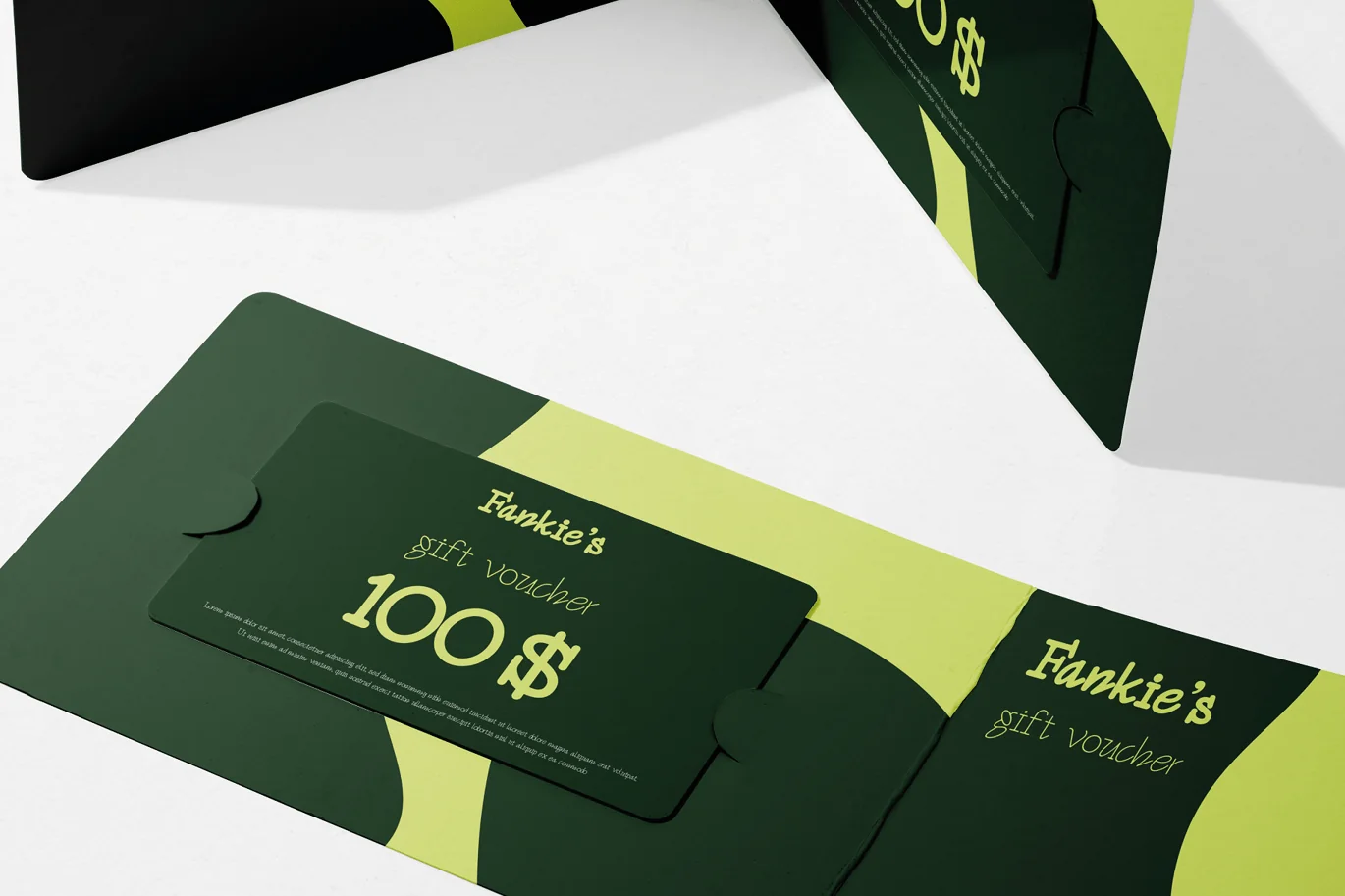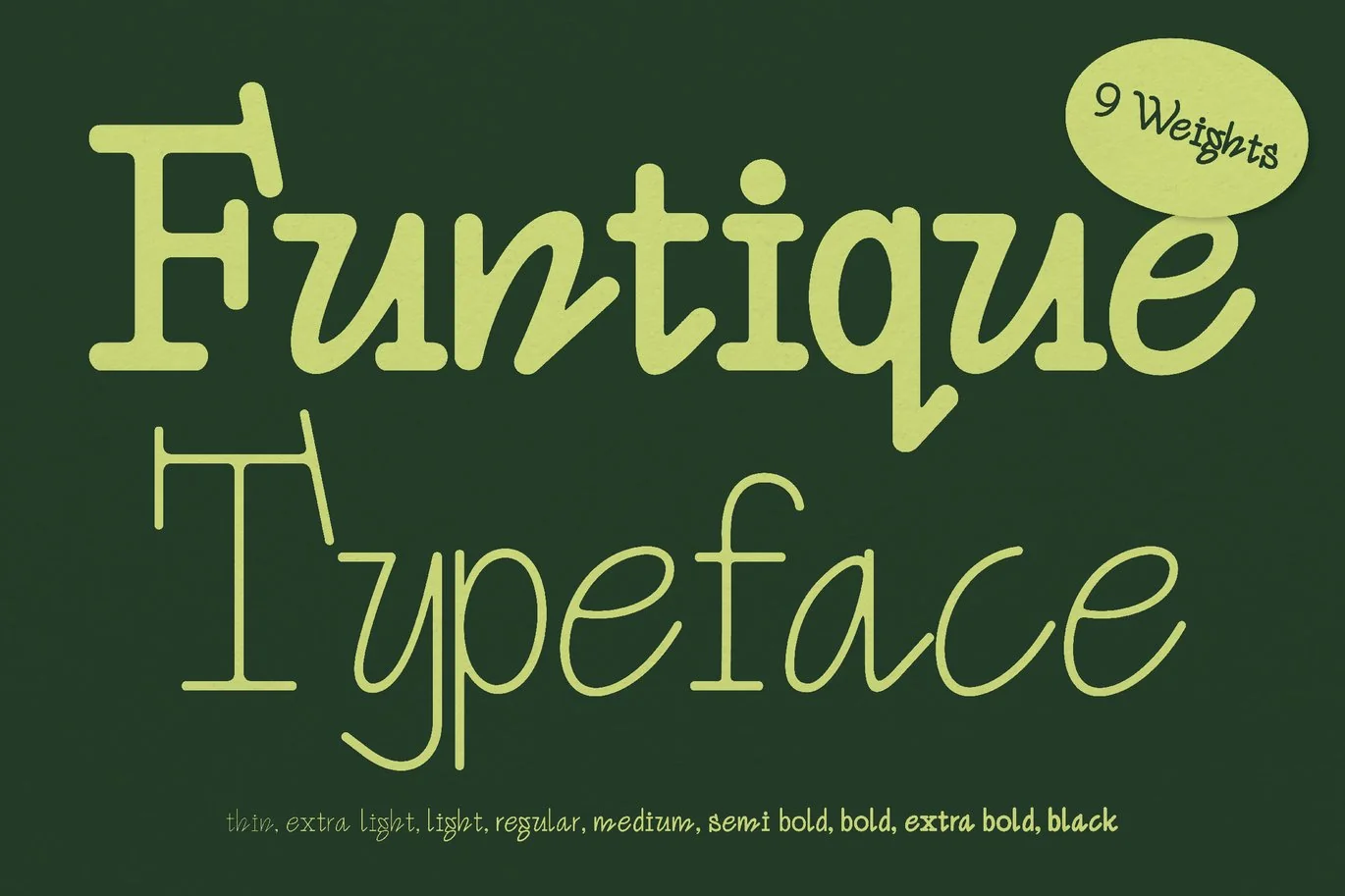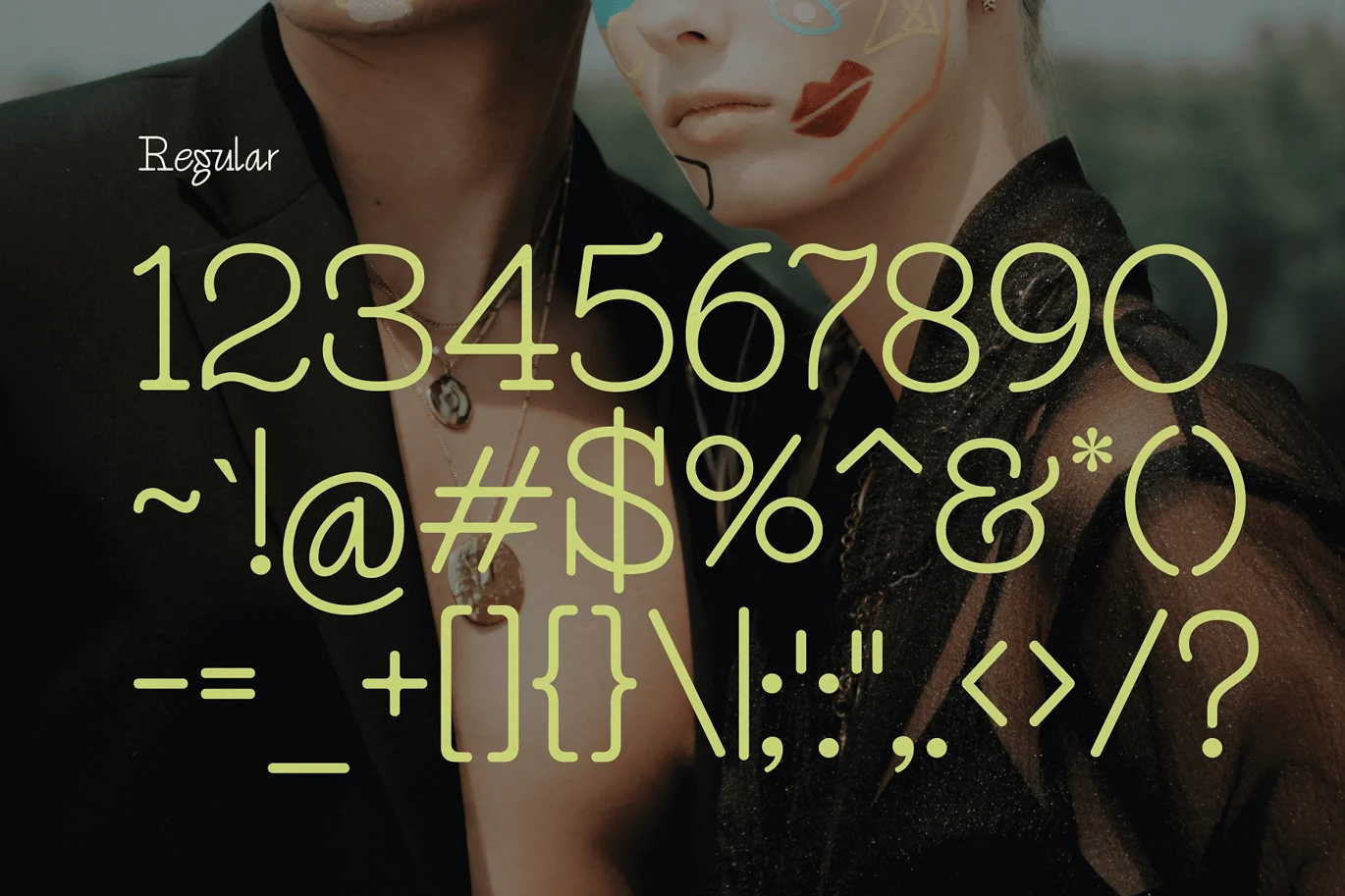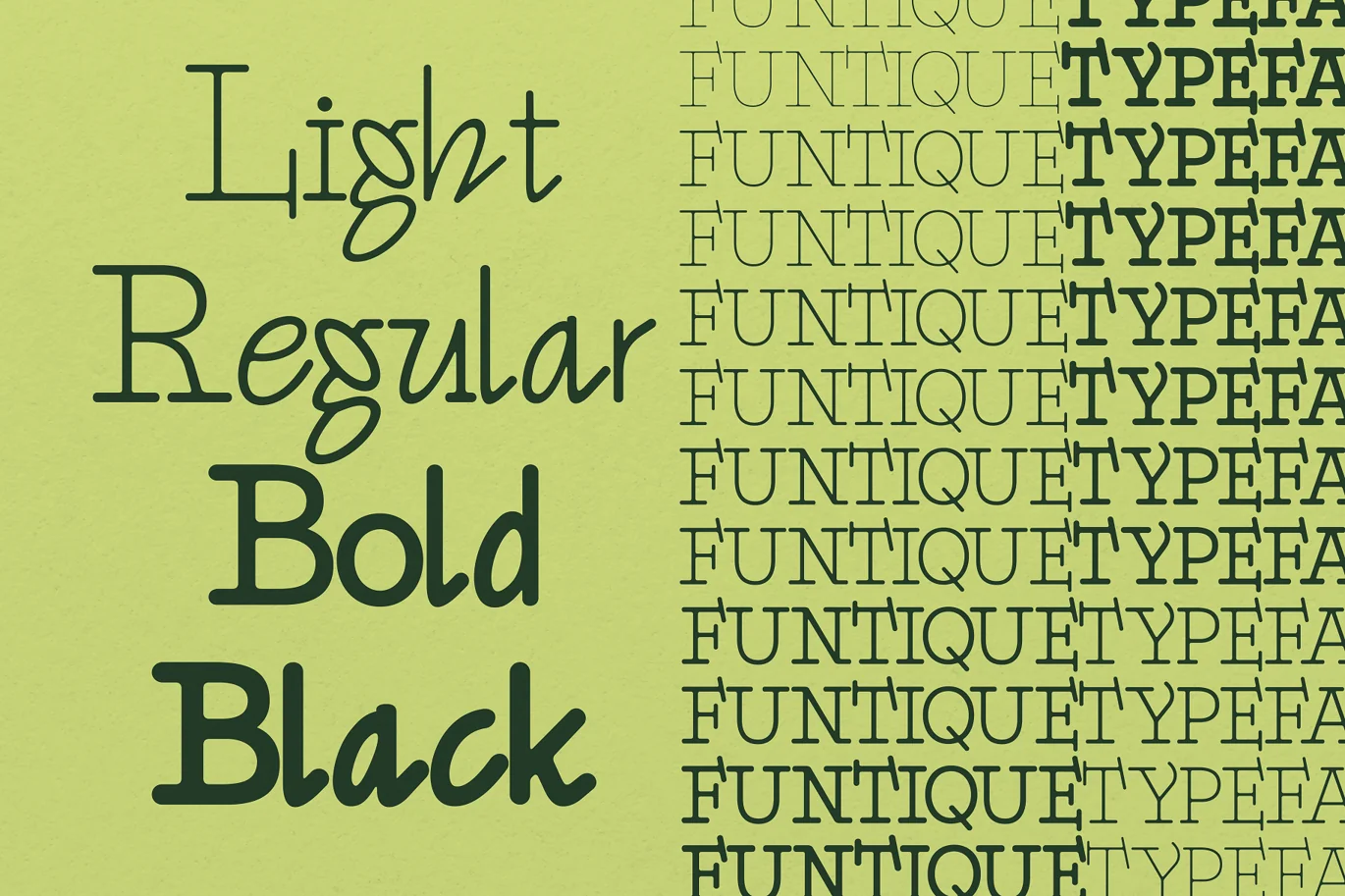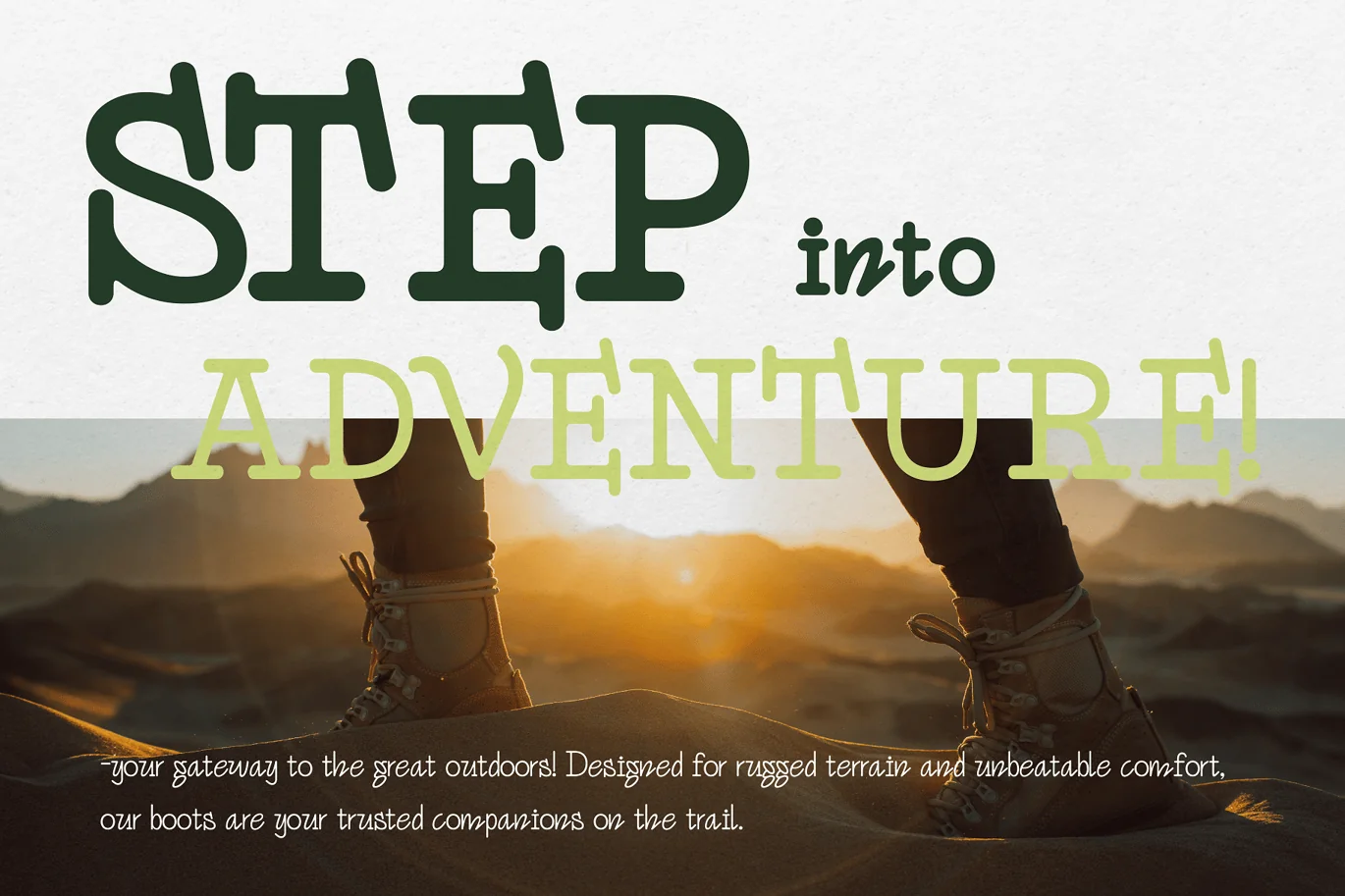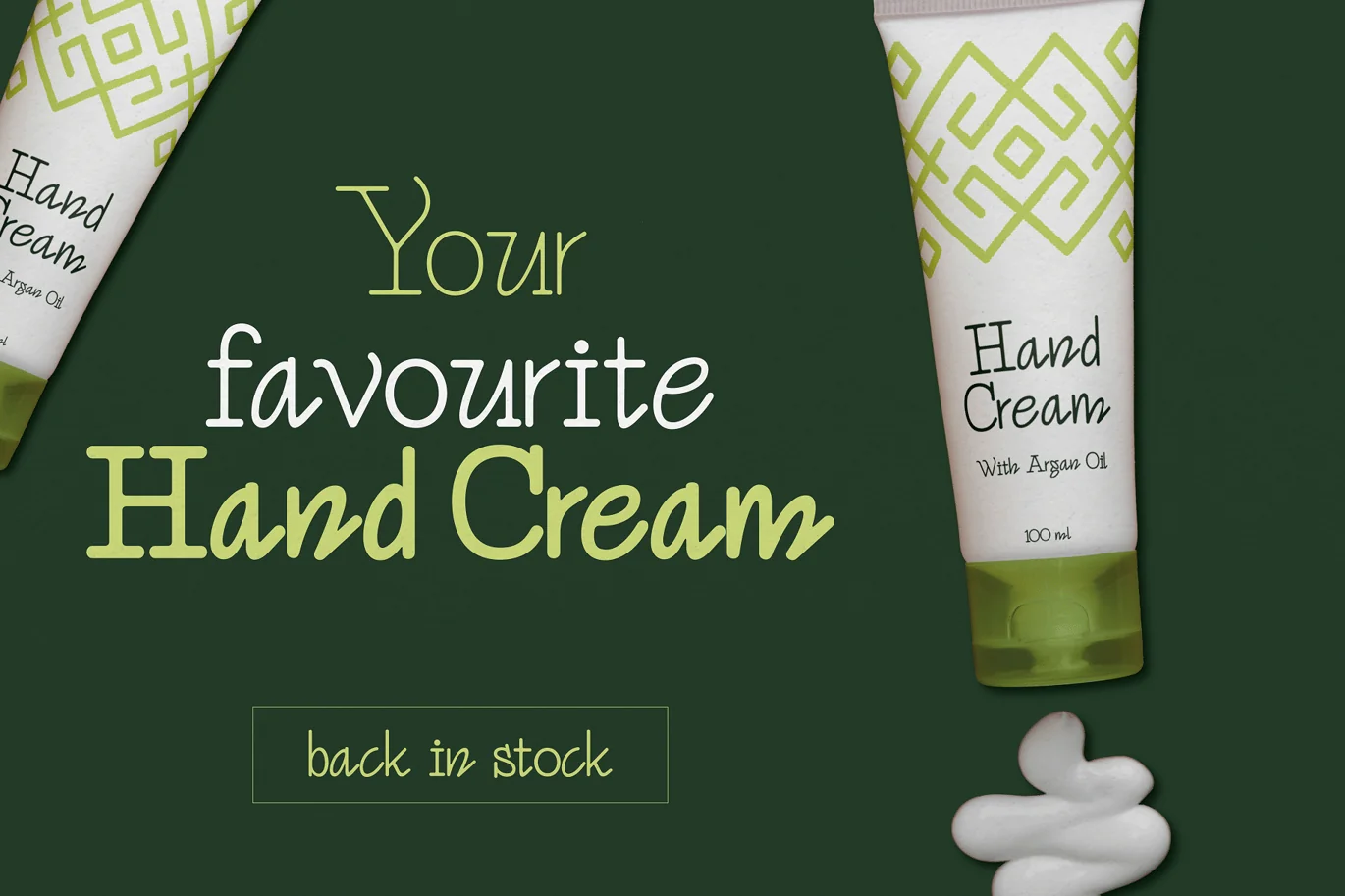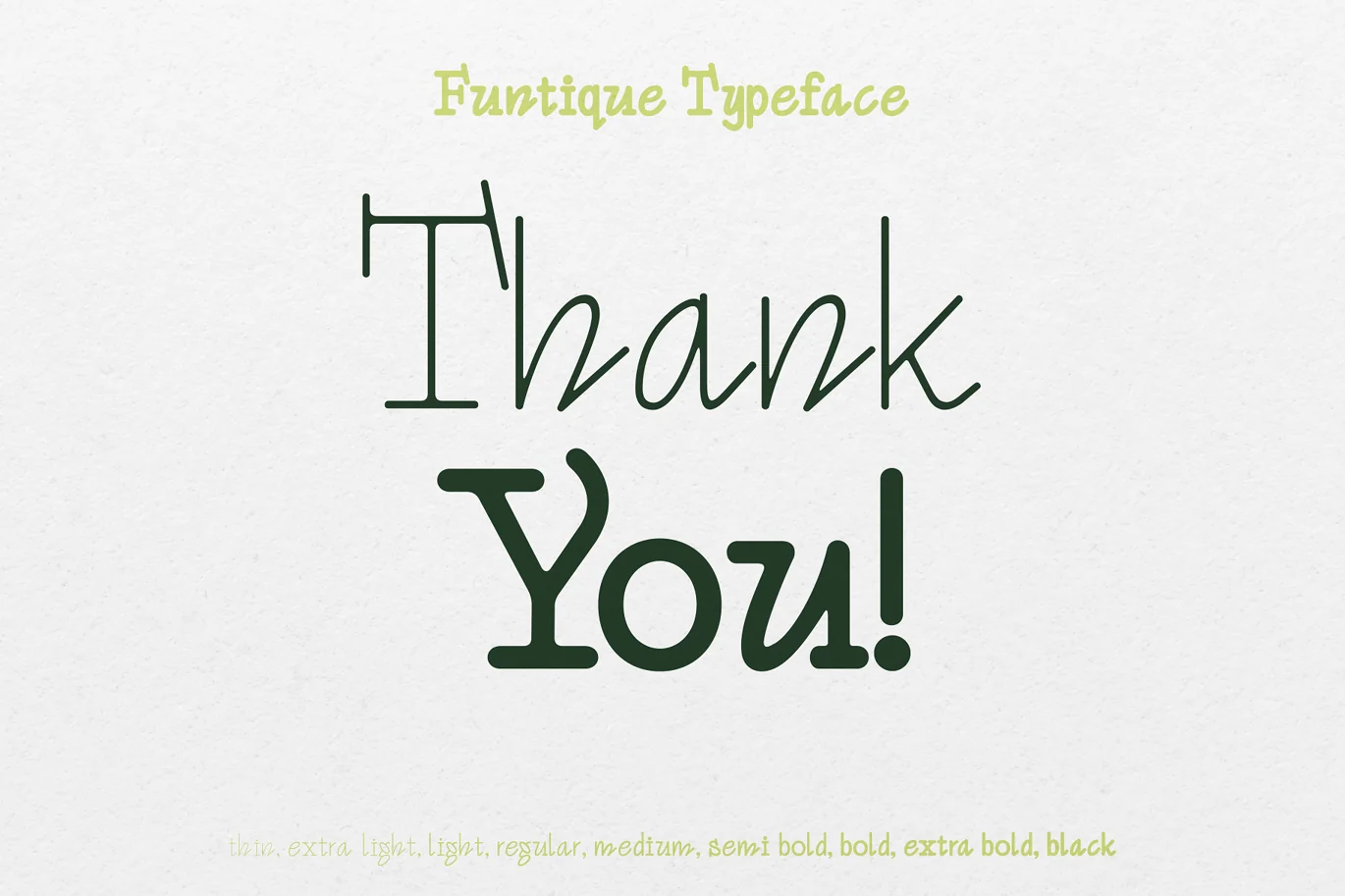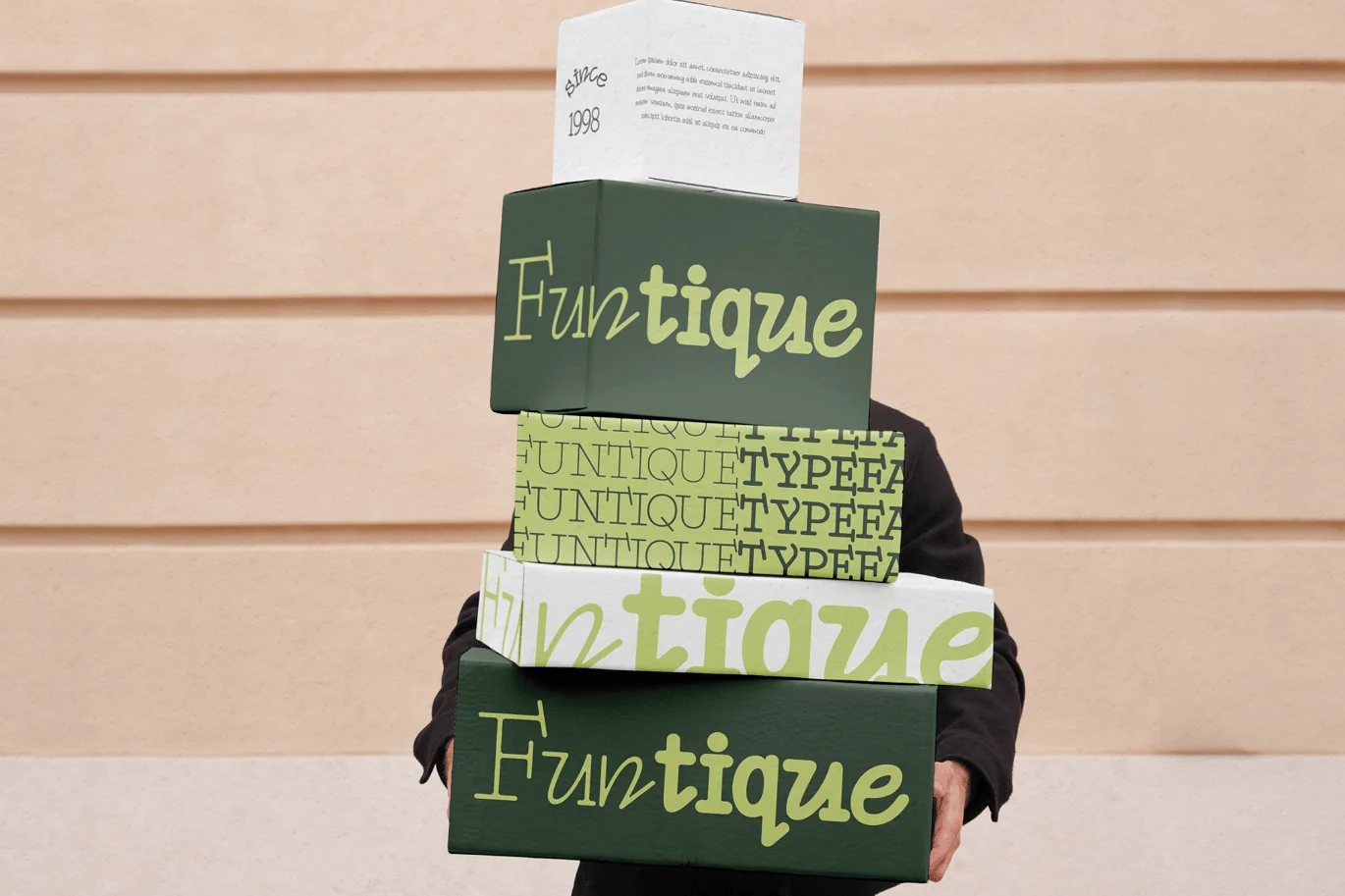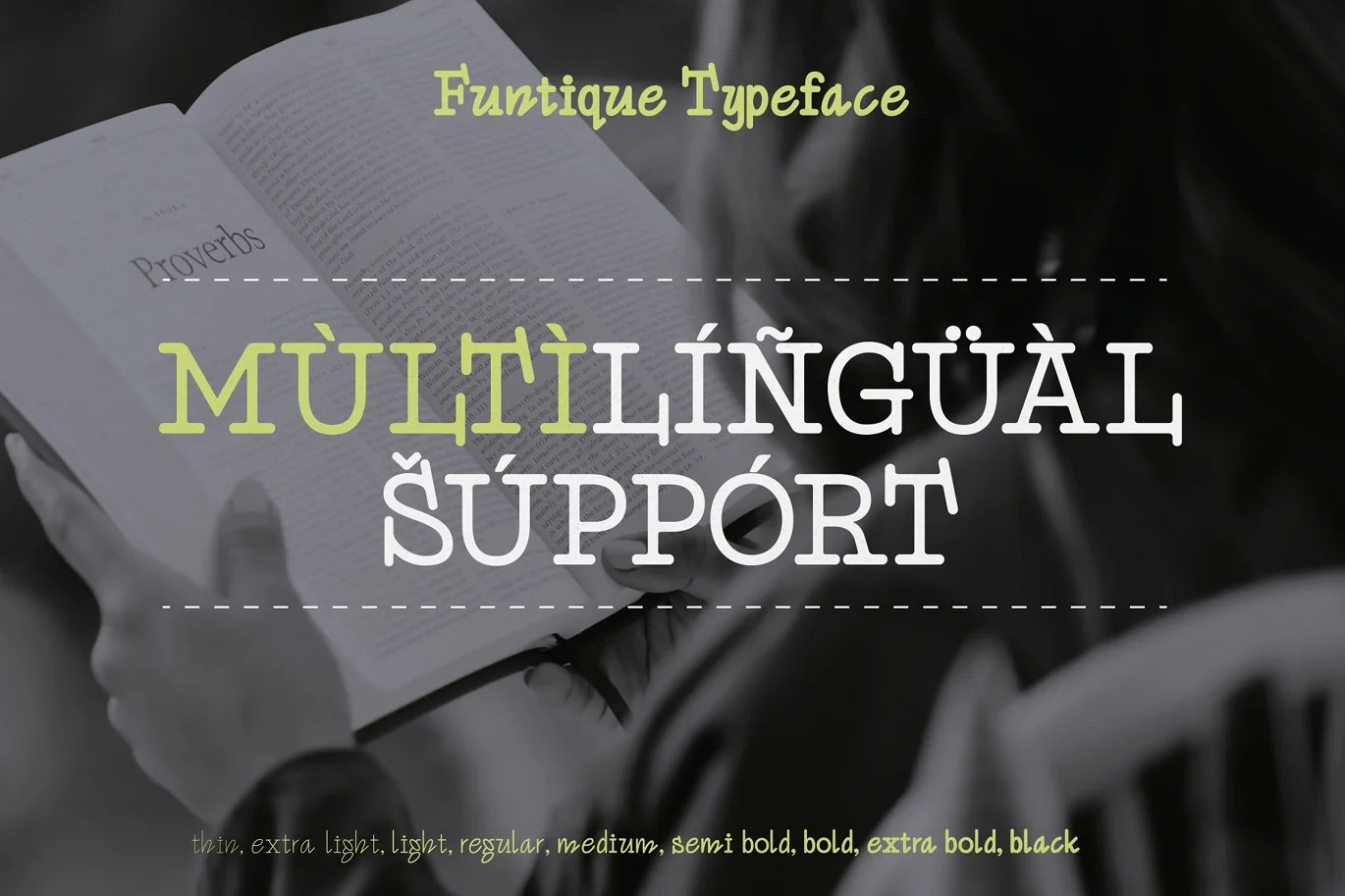
Funtique – Unique Serif Typeface
Introducing Funqtique, a dazzling modern serif typeface that blends classic elegance with contemporary flair. This versatile font is a masterpiece of design, offering a harmonious balance between the timeless appeal of serif fonts and the clean, sleek lines of modern aesthetics. With over nine distinct weights, Funqtique provides an exceptional range of options, from the ultra-light and airy to the bold and commanding. Its beautiful, well-crafted characters are designed to bring a touch of sophistication to any project.
Funqtique stands out for its multilingual capabilities, ensuring seamless integration into a wide array of languages and scripts. This makes it an ideal choice for global brands, multicultural projects, and designers who aim to reach a diverse audience. Whether you’re creating elegant invitations, impactful branding materials, or captivating digital content, Funqtique’s flexibility and beauty make it the perfect font for numerous creative endeavors. Its legibility and style ensure that your message is not just seen, but felt, making Funqtique a must-have for designers seeking a typeface that truly makes a statement.